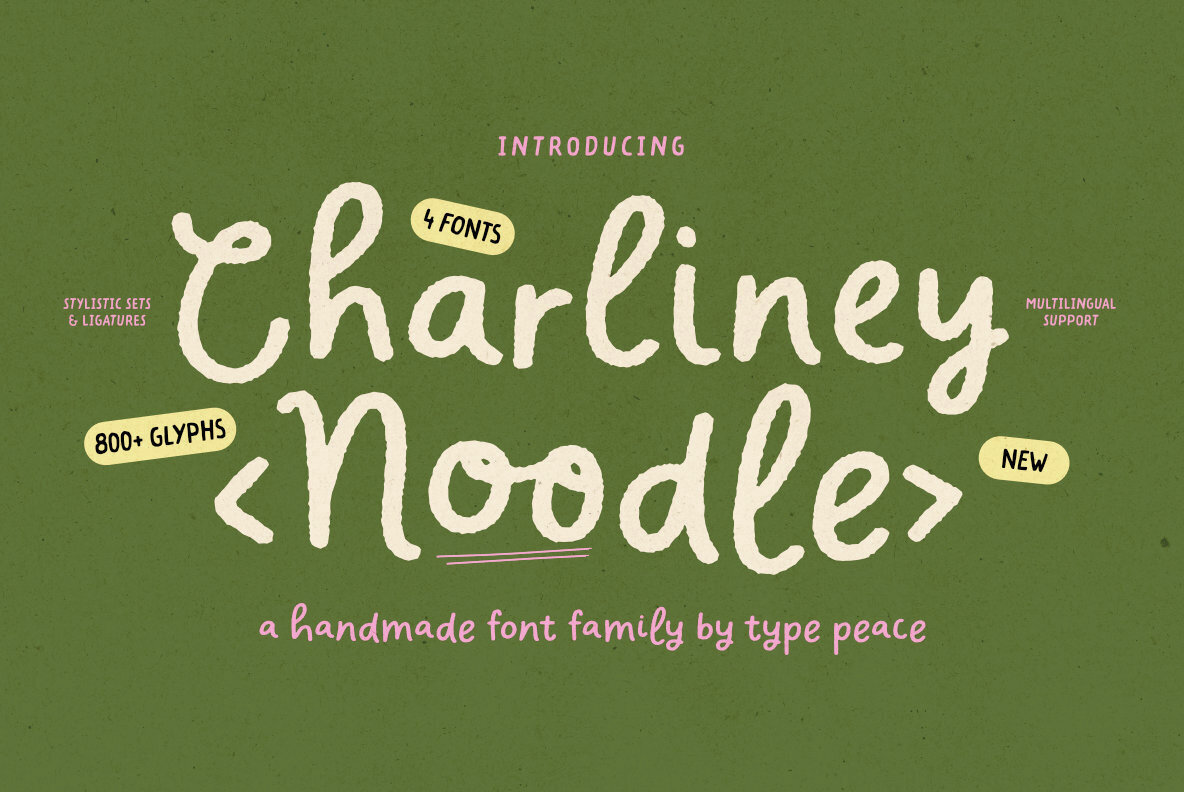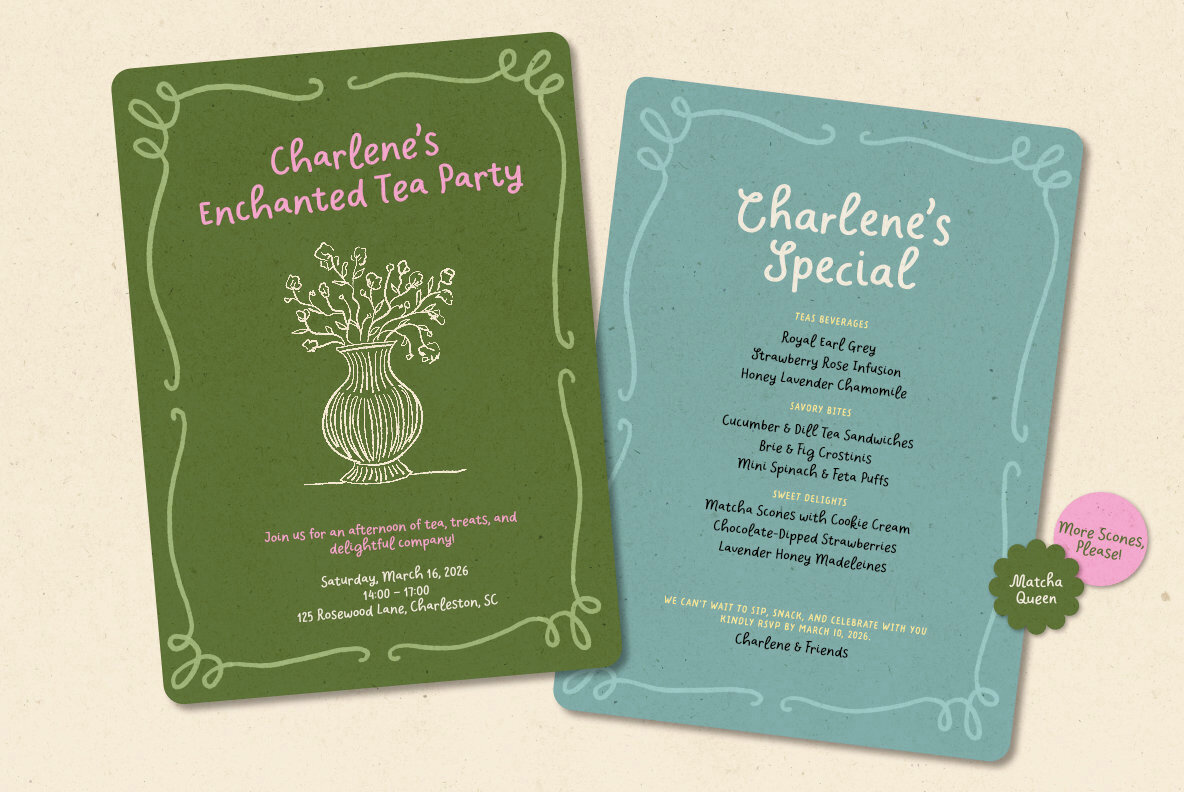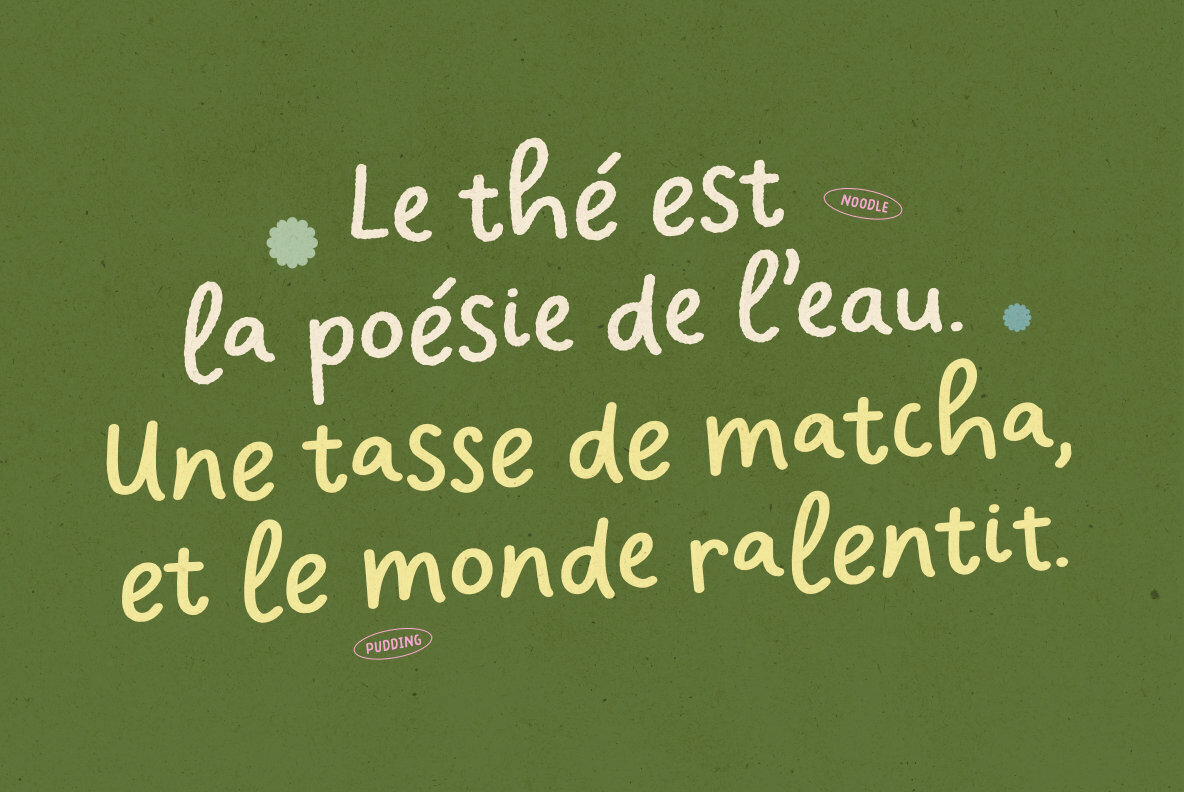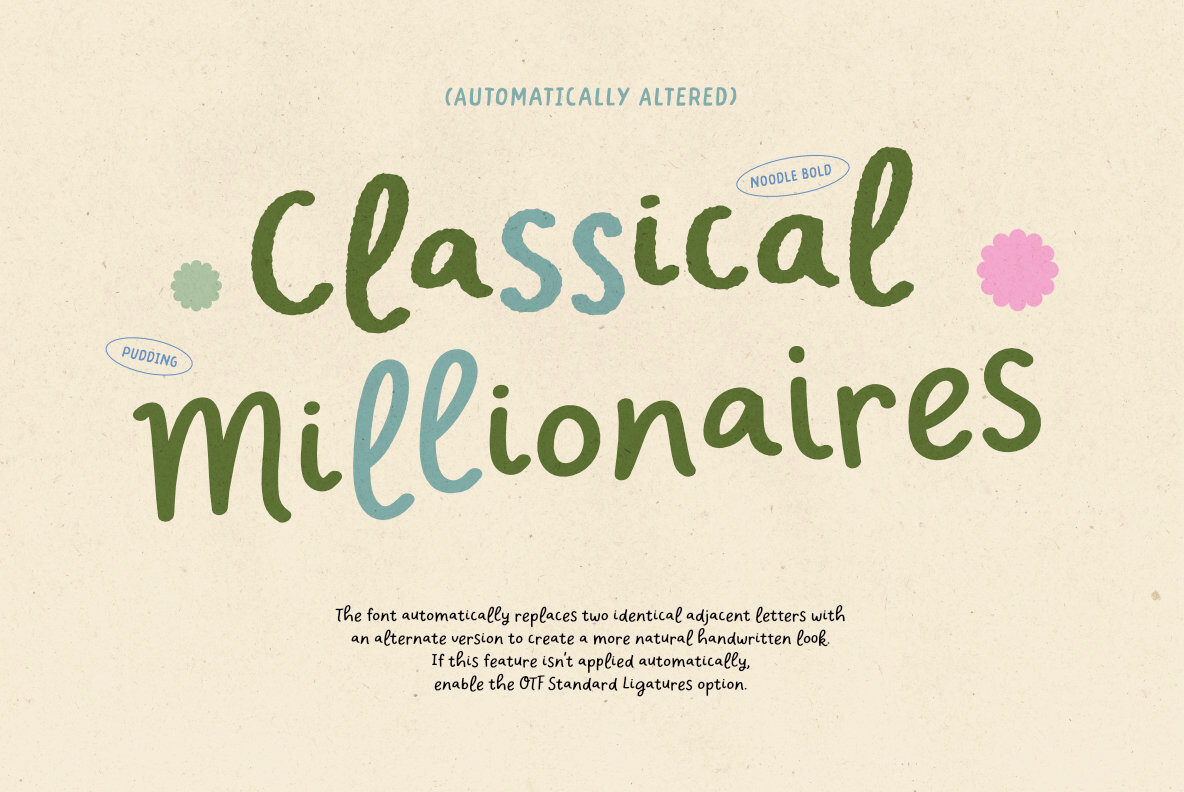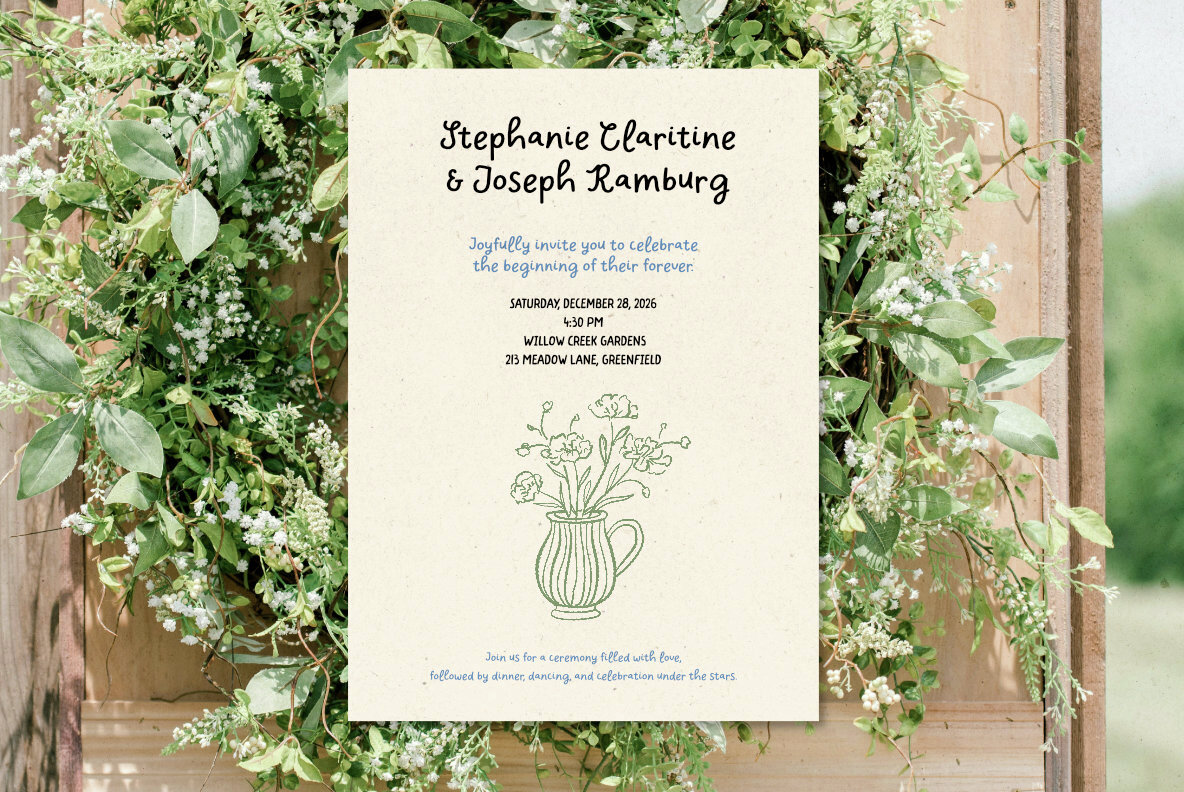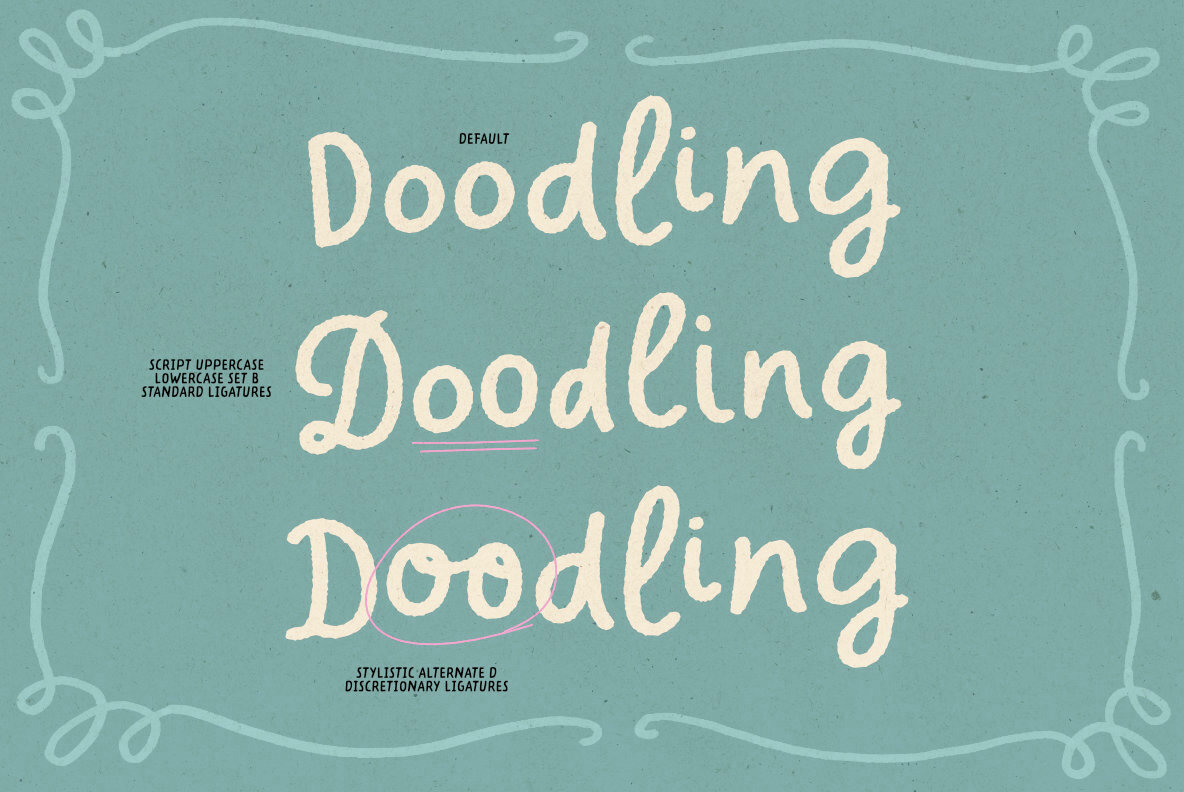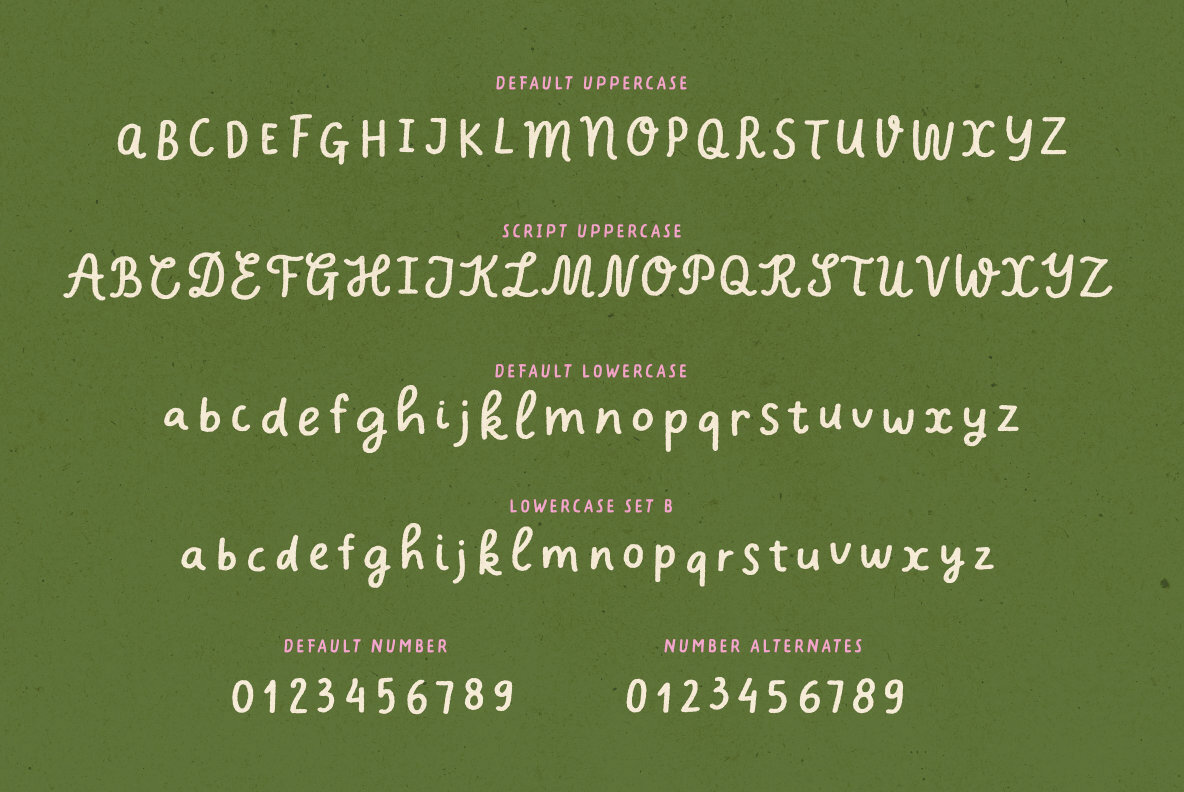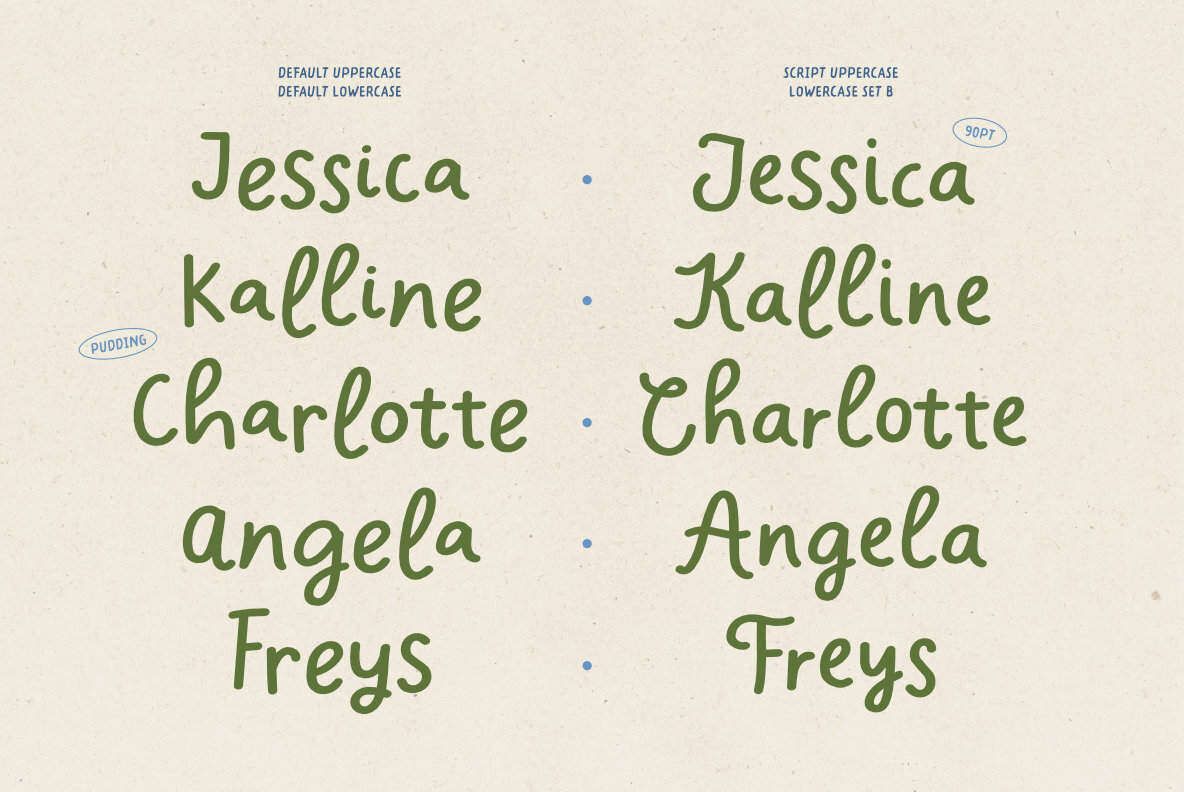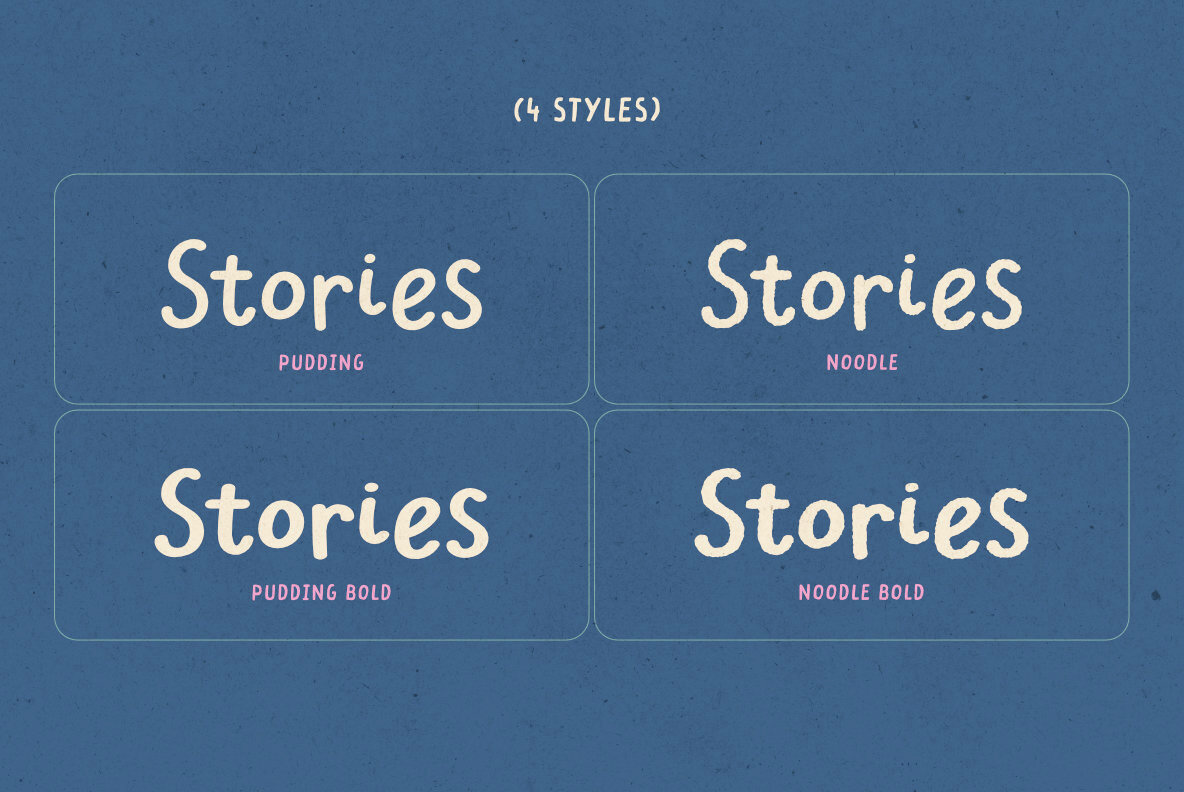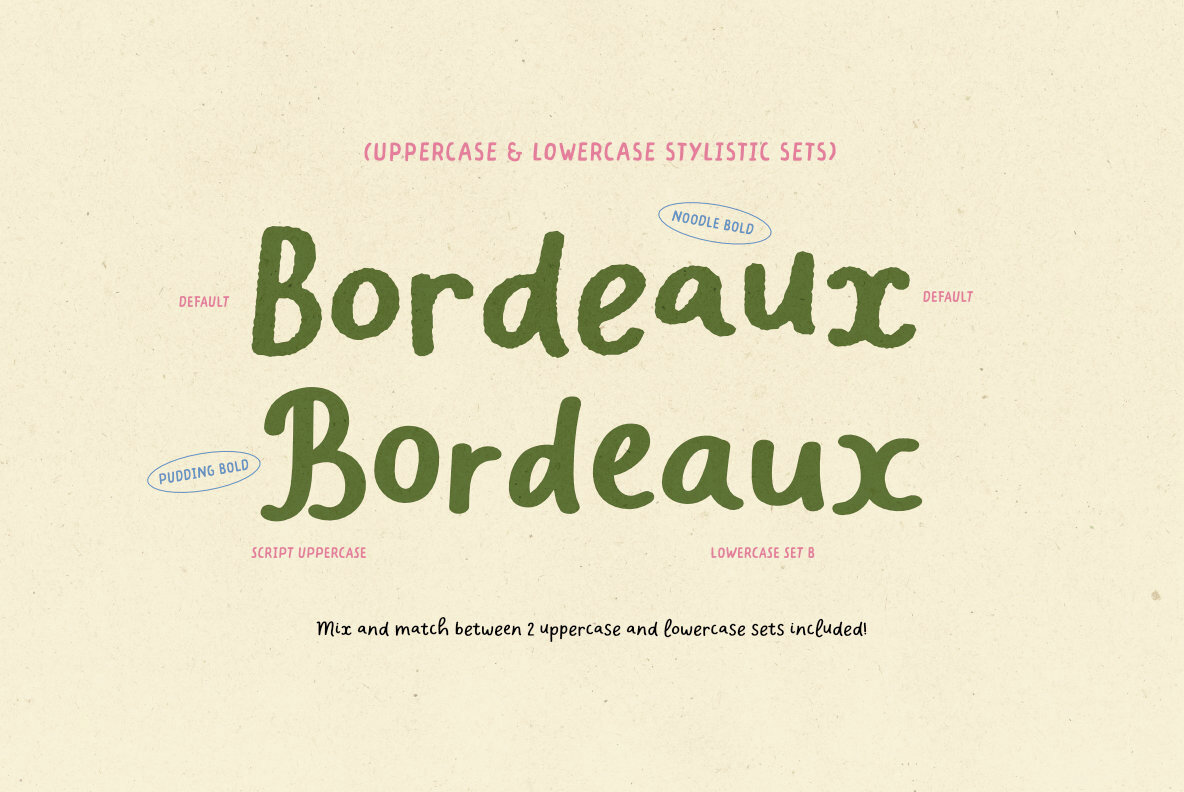
Charliney Font
Charliney Noodle Bold
Charliney Pudding Bold
Charliney Noodle
Charliney Pudding
Charliney, featuring four distinct font styles (Pudding, Noodle, Pudding Bold, and Noodle Bold), offers a multilingual font family with a natural flow and handcrafted feel. It is ideal for adding a personal, artisanal touch to your designs, from stationery to branding, invitations, packaging, and more. The font automatically replaces two identical adjacent letters with an alternate version to create a more natural handwritten look. If this feature isn't applied automatically, enable the OTF Standard Ligatures option.Charliney: Handcrafted Font Family with Multilingual Support